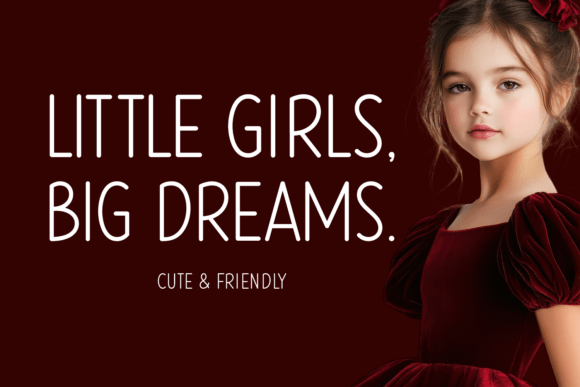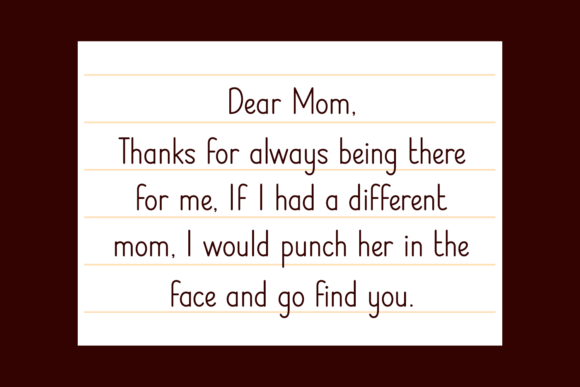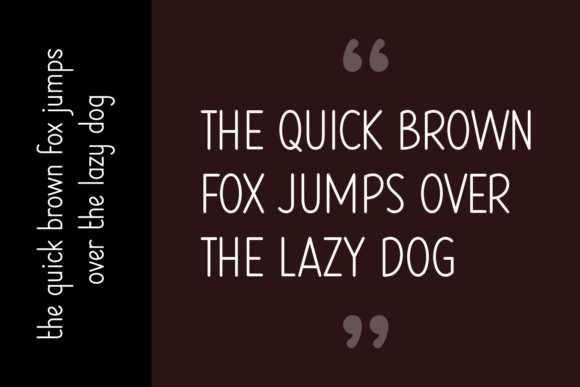
Introduction to Heykids Font Font
Fonts play a crucial role in design, and the Heykids Font font is a typeface that brings both character and versatility to any project. Whether you’re working on a branding project, a website, or a print design, the Heykids Font font offers a unique style that can elevate your work.
Heykids font is a clean, friendly, and highly legible sans serif typeface designed to bring a sense of modern simplicity to youth-oriented projects.
This approachable Heykids typeface features soft, rounded letterforms that feel gentle and inviting, making it an ideal choice for educational materials, childrenβs book interiors, or nursery branding Use the Heykids font to ensure your message is crystal clear on mobile apps, website interfaces, or printed classroom posters.
Key Features of Heykids Font Font
Why Choose Heykids Font Font?
The Heykids Font font is more than just a typeface β it’s a design tool that helps you communicate your message with style and clarity. Its unique character set and versatile design make it suitable for a wide range of applications, from elegant invitations to bold headlines.
With its carefully crafted letterforms and balanced proportions, the Heykids Font font ensures readability and visual appeal across all mediums.
What makes Heykids Font font special?
The Heykids Font font stands out with its unique design, exceptional readability, and versatility across various design applications.